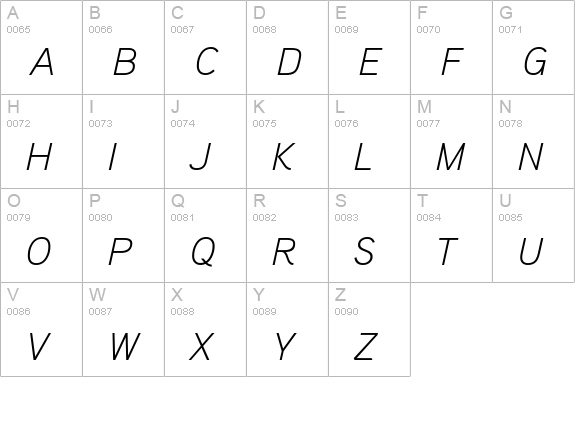
Aaux ProLight Italic Font Details
Aaux ProLight Italic is a distinctive, italic variant in the Aaux typeface family \xE2\x80\x94 well suited to design and typography projects.